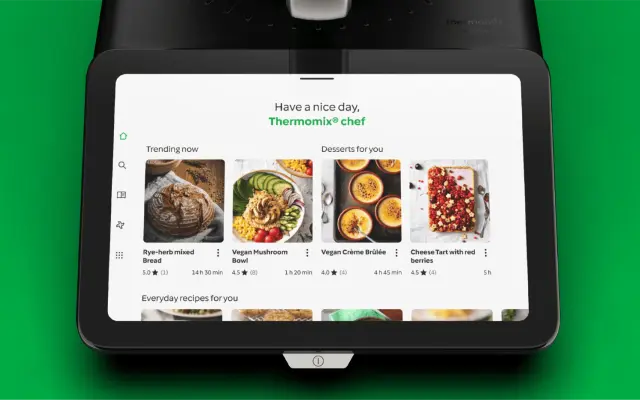
Vorwerk
Character Type · Henning Skibbe, Anja Meiners
A geometric corporate typeface designed for Vorwerk by Character Type, with pointed corners taken from the brand logo and coverage of 311 languages across Latin, Cyrillic and Greek scripts.
Designed by Henning Skibbe and Anja Meiners in partnership with Jung von Matt Brand Identity, the family runs across eight styles: four weights from Light to Bold each with a matching italic. A key challenge was achieving text economy comparable to Roboto Sans despite the typically wider proportions of geometric designs, which the Vorwerk typefaces meet through careful spacing calibration. Brand-specific details such as pointed arch corners and quarter-circle forms, both taken directly from Vorwerk's existing visual identity, are integrated throughout the character set.
The foundry explicitly describes it as a geometric typeface family, with quarter-circle forms drawn from the Vorwerk logo and space-saving proportions benchmarked against Roboto Sans.